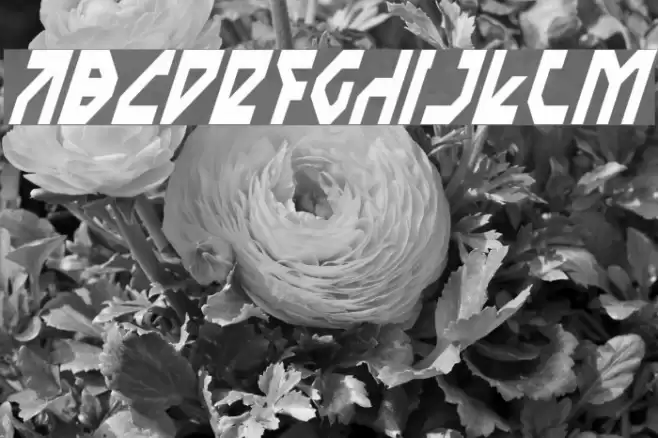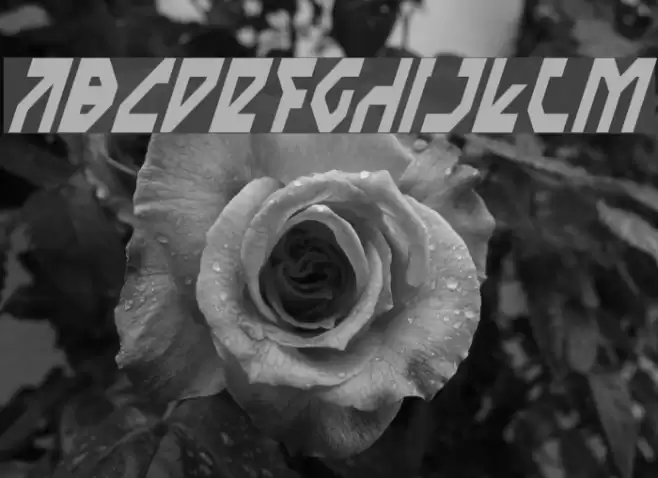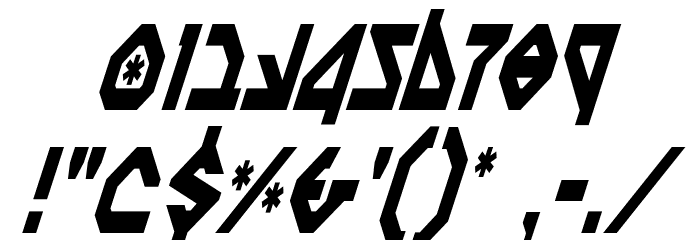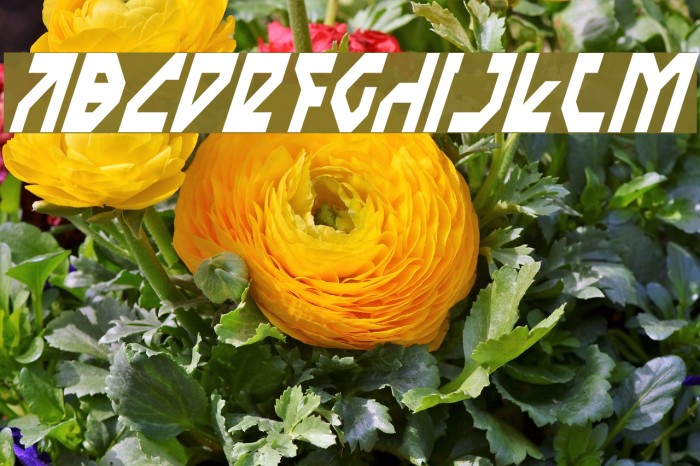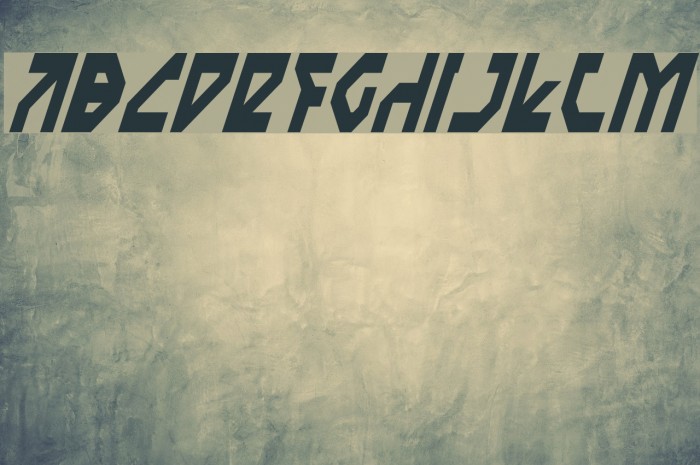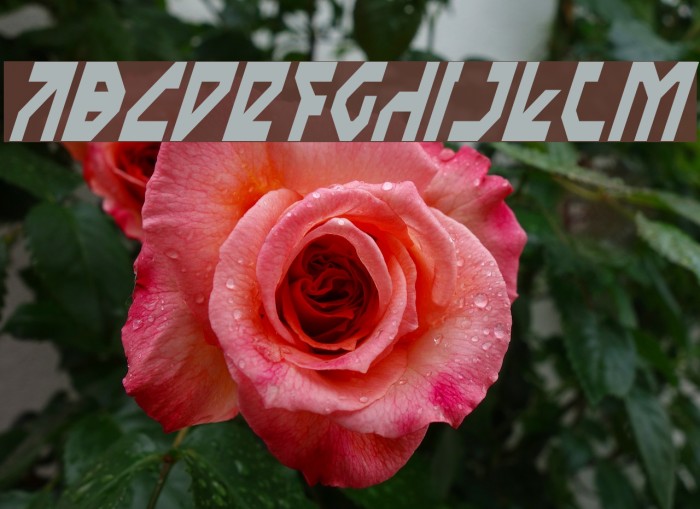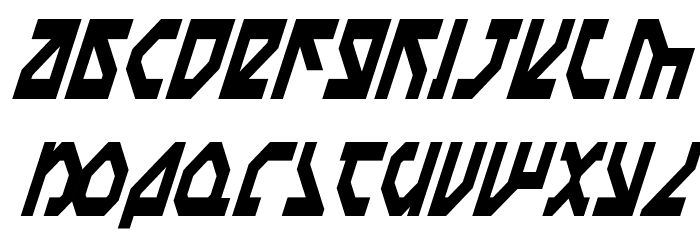
Nostromo Condensed Italic Font
Nostromo Condensed Italic Description
This font features a futuristic and angular design, characterized by sharp edges and a distinct geometric style. The letters are condensed and italicized, giving a sense of motion and speed. The uppercase and lowercase characters maintain a consistent angular theme, with unique cuts and angles that create a dynamic appearance. Numbers and special characters follow the same design principles, ensuring a cohesive look across all glyphs. The overall aesthetic is bold and striking, making it suitable for projects that require a modern and edgy feel.
A futuristic, angular, and condensed italic font with a bold and dynamic style from Uncategorized fonts.
- Proposed Projects: Ideal for sci-fi themed designs, video game titles, movie posters, and branding for tech companies.
- Character Spacing: Tight